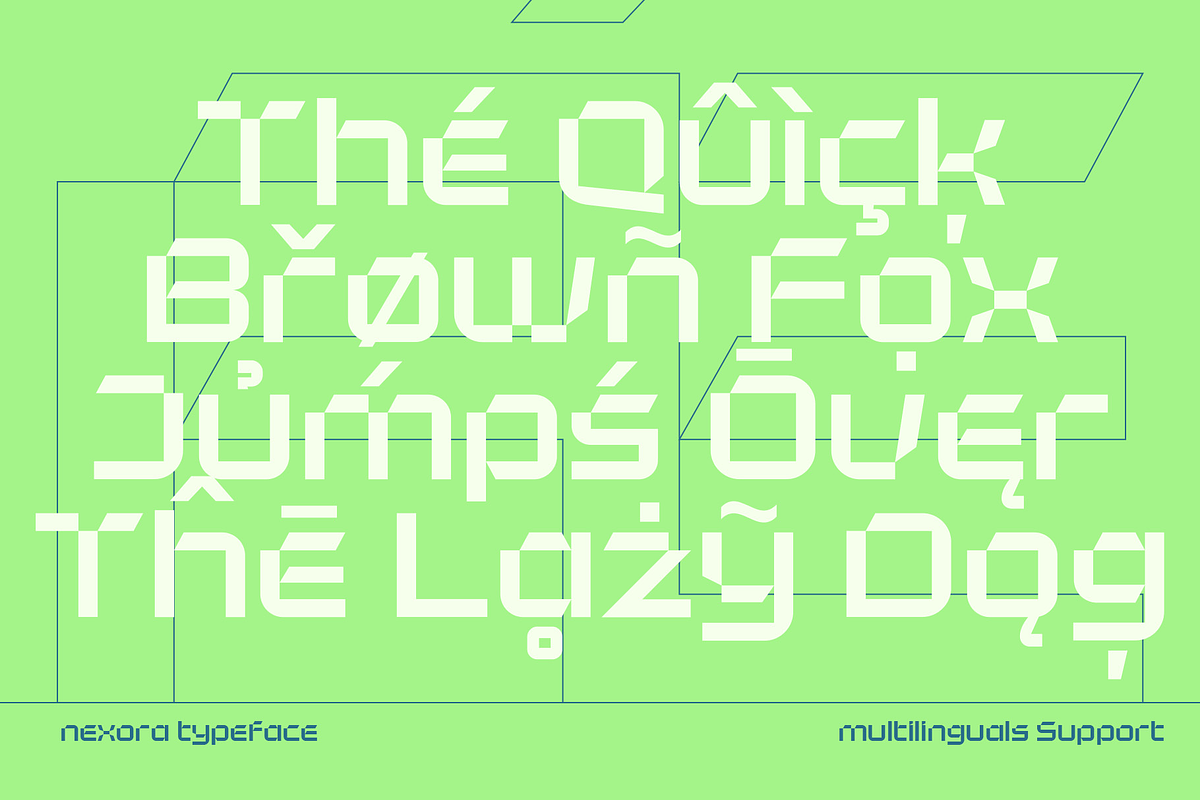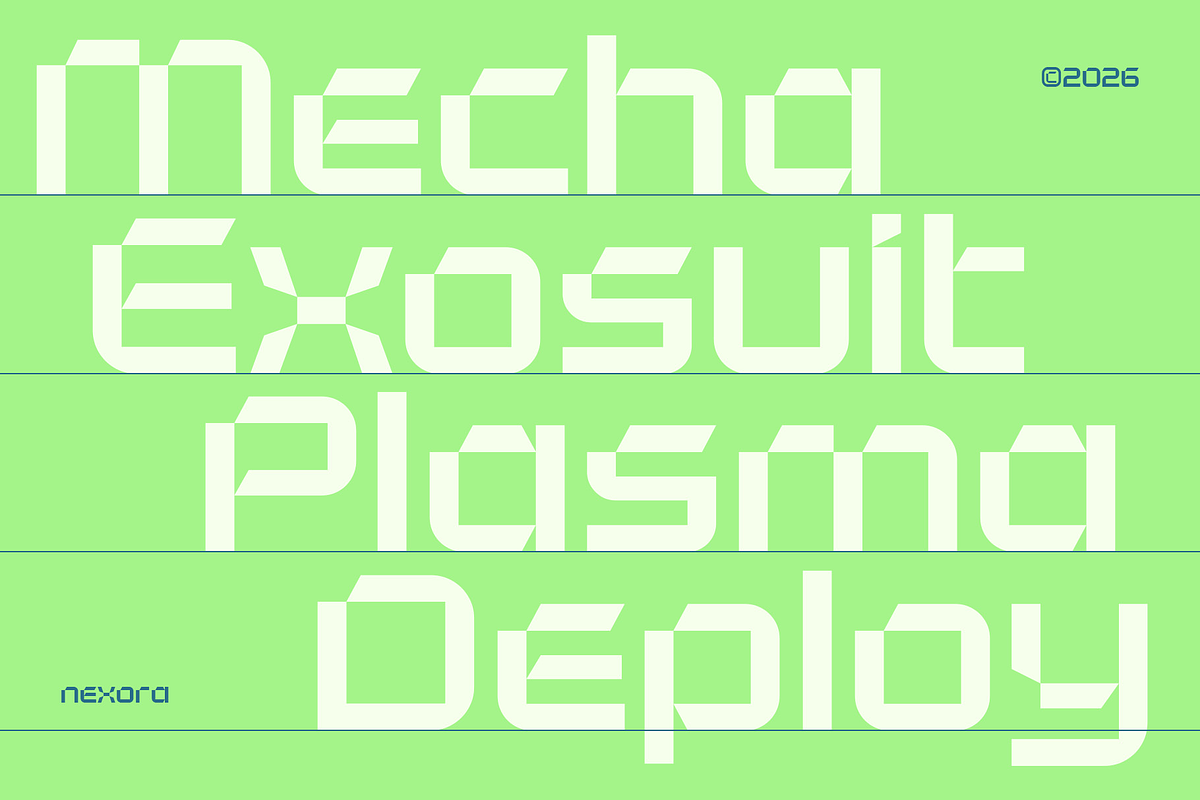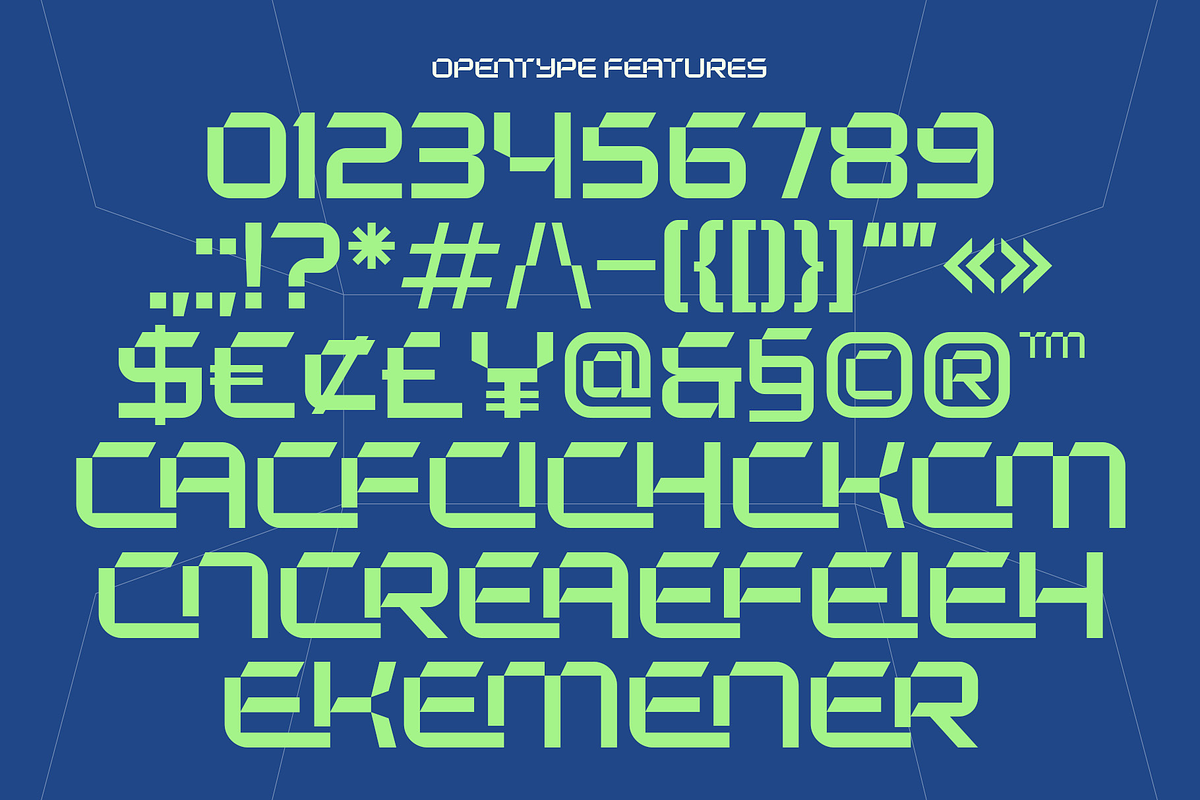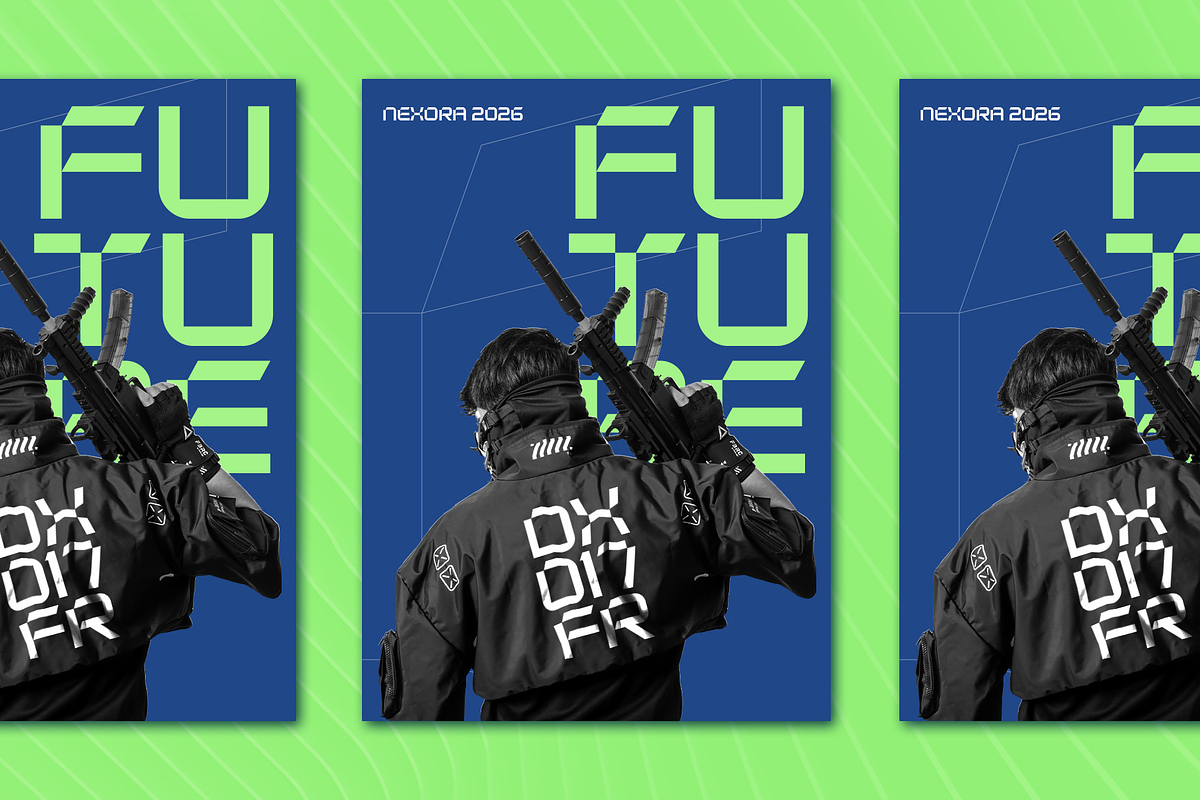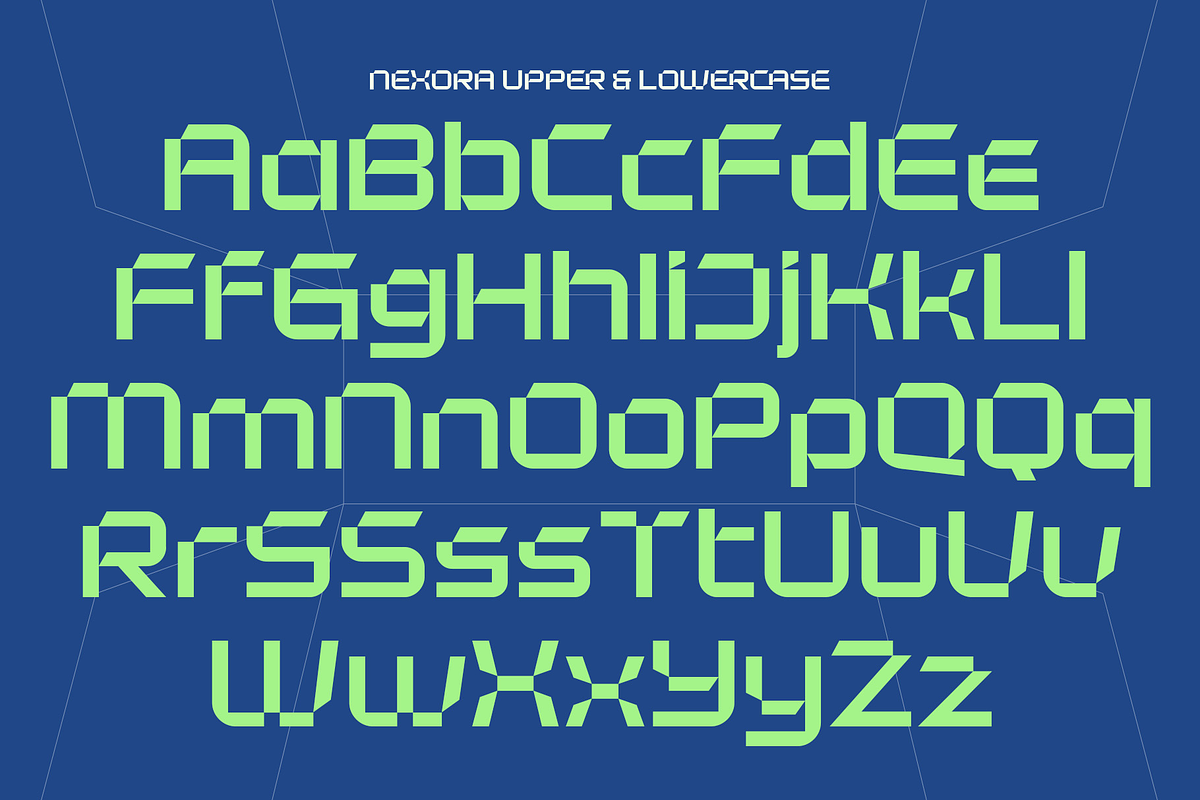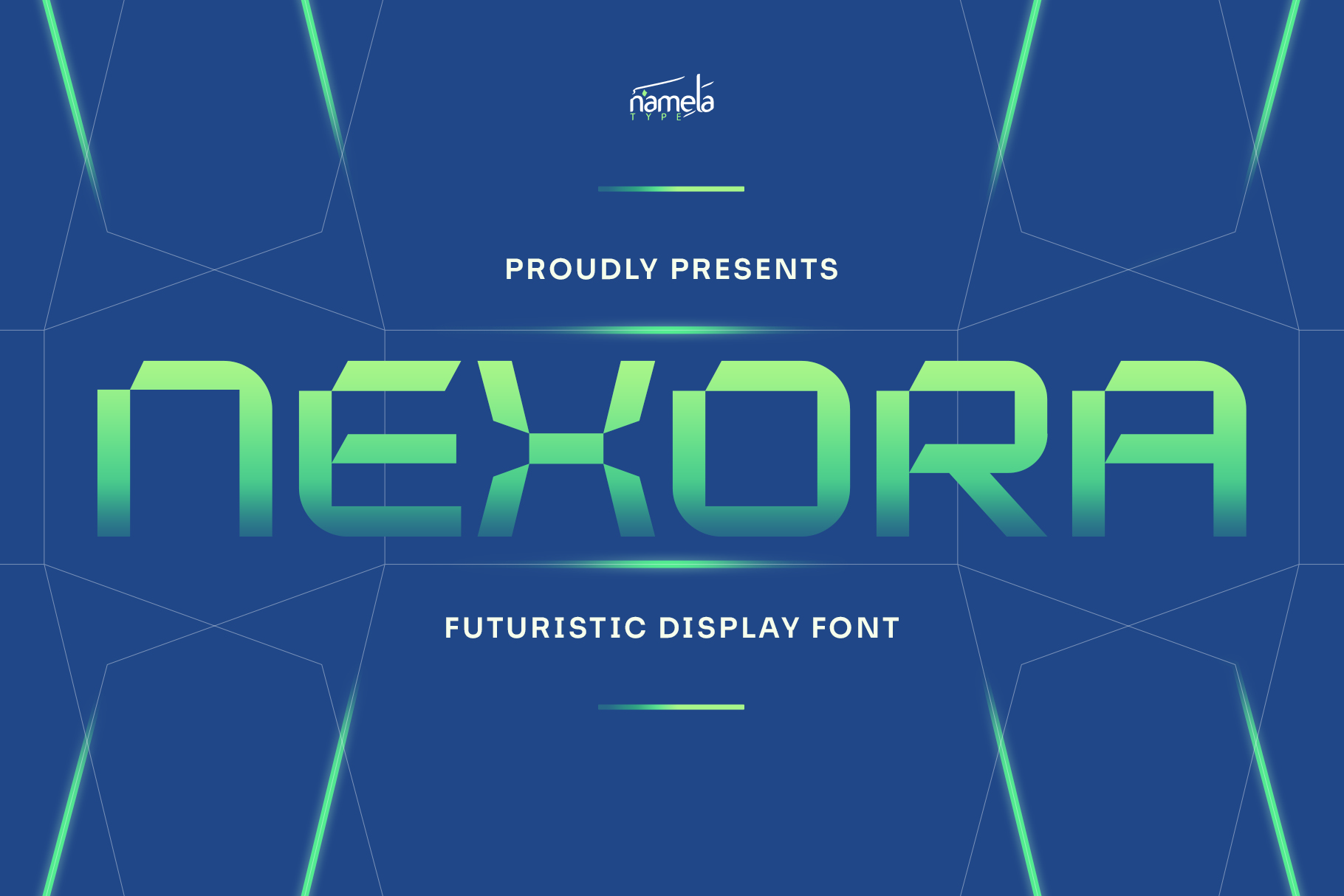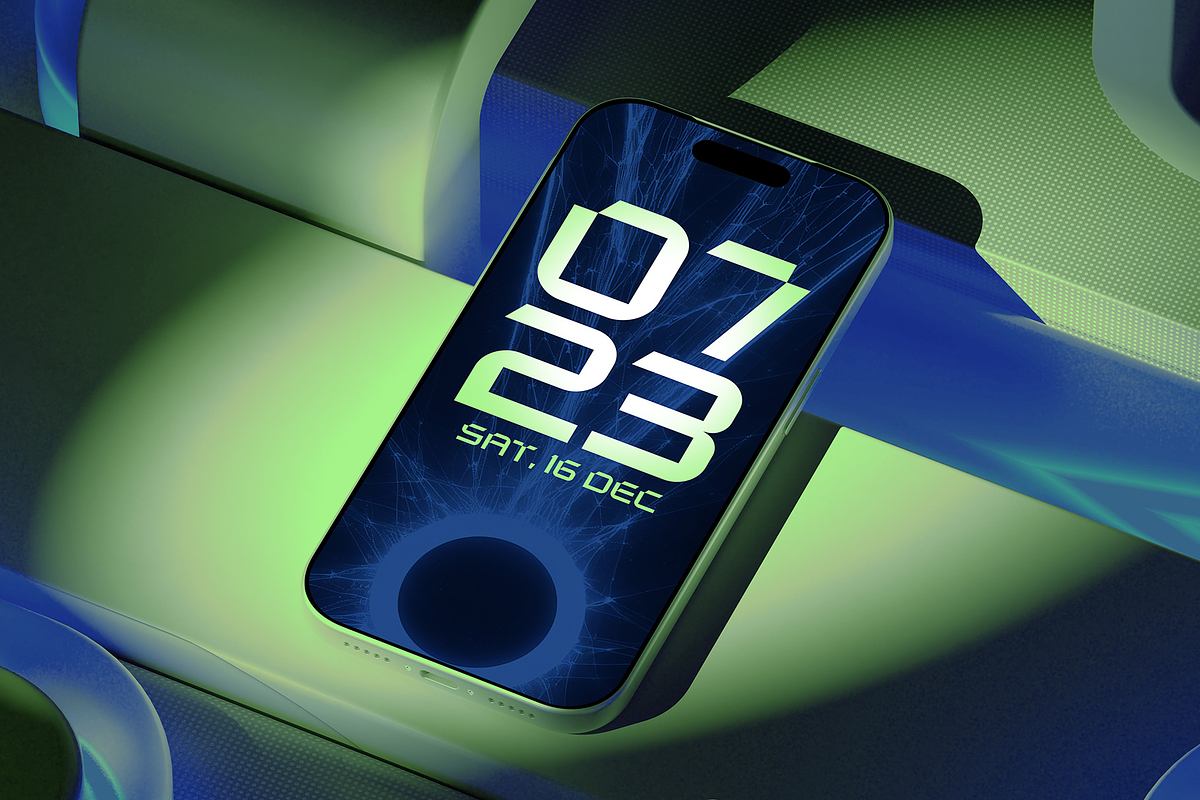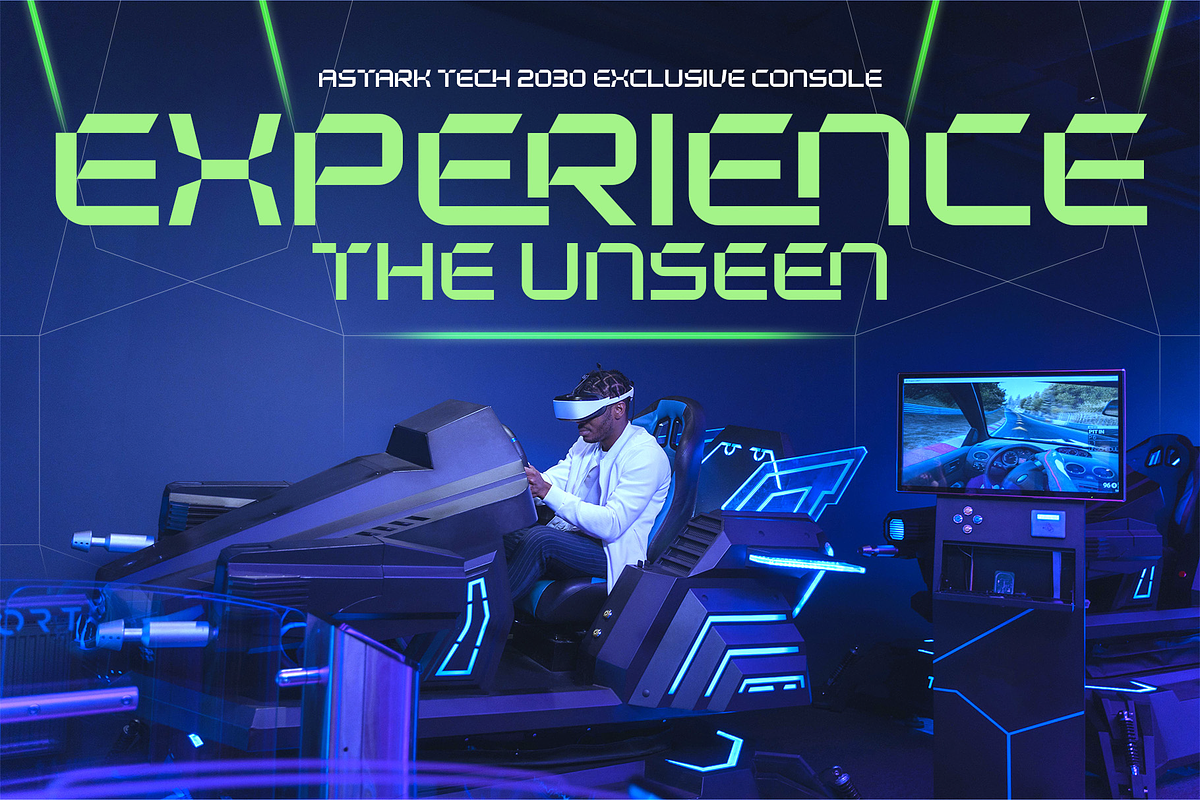
Nexora Futuristic Display Typeface
Nexora – Futuristic Display Typeface for Technology and Digital Innovation
Nexora is a futuristic display typeface created for the next generation of digital creativity. Inspired by cyber technology, sci-fi interfaces, gaming culture, and advanced industrial design, Nexora features sharp geometric letterforms with clean angular cuts that establish a bold and highly recognizable visual identity. Its sleek proportions, disciplined structure, and minimalist construction deliver exceptional readability while projecting a confident technological presence.
Designed for creators who value innovation and precision, Nexora combines modern geometry with futuristic aesthetics to produce typography that feels powerful without becoming overly complex. Whether used for branding, digital products, gaming experiences, or technology-focused visual systems, Nexora communicates progress, intelligence, and forward-thinking design.
Nexora is distinguished by sharp geometric glyphs, precise angular cuts, and carefully engineered proportions that establish a clean technological appearance. Every character has been designed to maintain excellent readability while projecting a sophisticated high-tech personality suitable for large headlines, logos, interfaces, and promotional graphics.
Its geometric framework creates visual consistency, while carefully balanced spacing ensures comfortable reading across different applications. Strong silhouettes combined with disciplined negative space give the typeface a distinctive futuristic identity without compromising versatility. This refined construction allows Nexora to perform equally well across technology branding, digital platforms, gaming environments, and editorial design.
Variable and OpenType Features
Nexora includes:
Uppercase & Lowercase Characters
Futuristic Display Style
Geometric Letterforms
Tech-Inspired Design
OpenType Features
Advanced OpenType Features
Access All Alternates (aalt)
Glyph Composition (ccmp)
Standard Ligatures (liga)
Localized Forms (locl)
Stylistic Alternates (salt)
Stylistic Sets (ss01)
Denominator (dnom)
Fractions (frac)
Numerator (numr)
Ordinals (ordn)
Scientific Inferiors (sinf)
Subscript (subs)
Superscript (sups)
Kerning (kern)
Mark Positioning (mark)
Mark-to-Mark Positioning (mkmk)
These professional typography features provide exceptional flexibility for technology branding, software interfaces, gaming, digital publishing, corporate identities, and multilingual creative projects.